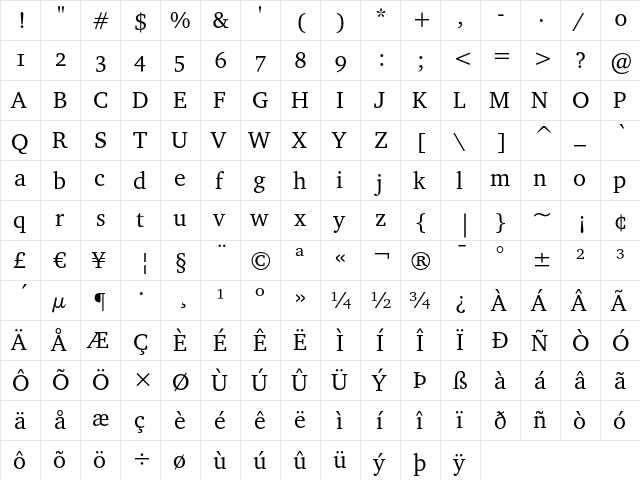
Bitstream Charter OSF
Design Context for Bitstream Charter Typeface
Bitstream Charter takes a measured approach to typography — its balanced proportions and neutral character make it a reliable workhorse for both digital and print work.